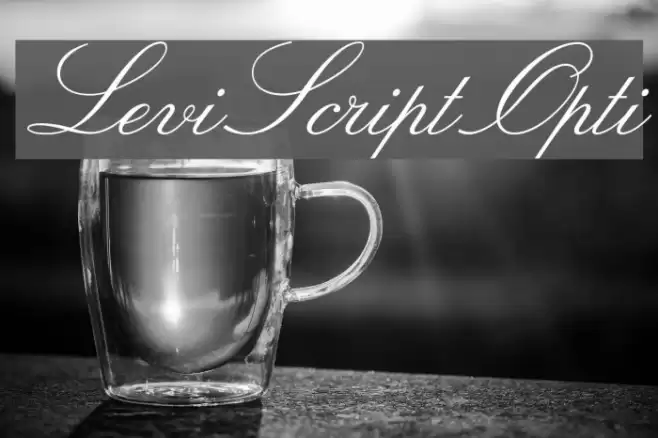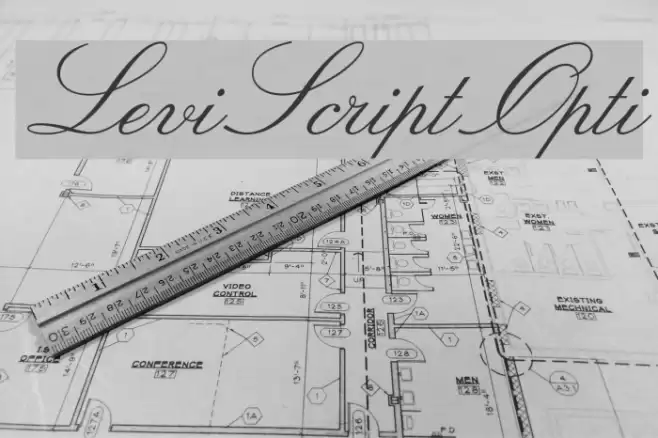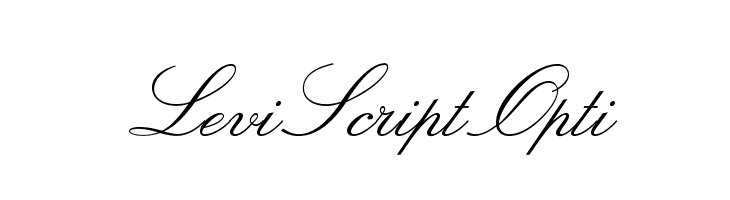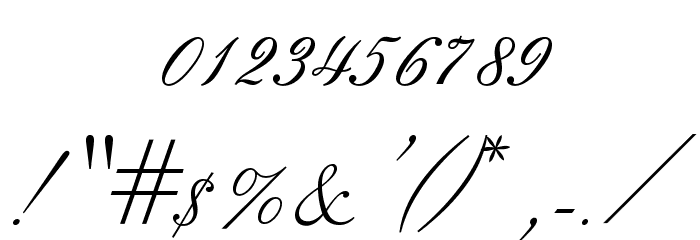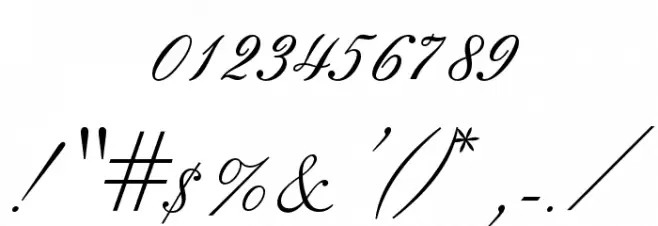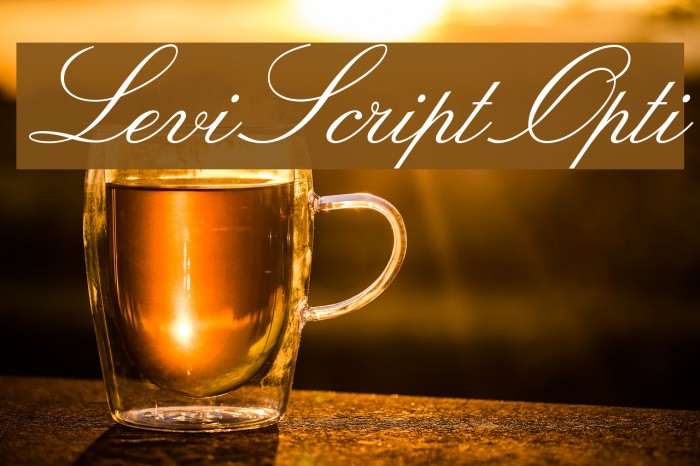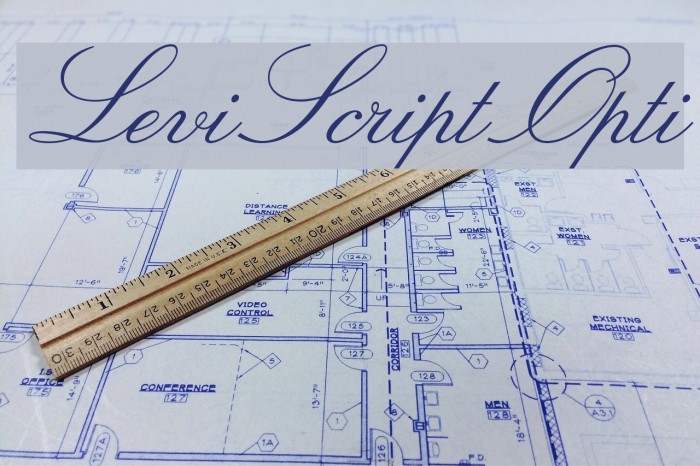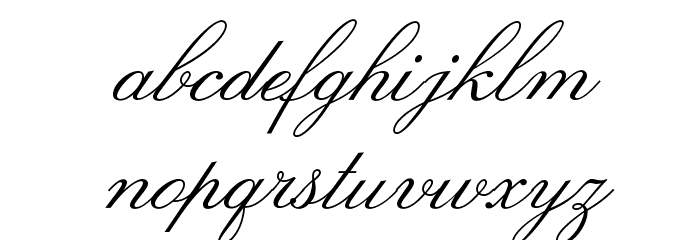
LeviScriptOpti Font
LeviScriptOpti Description
This elegant script font features flowing, cursive letters with a classic and sophisticated appearance. The uppercase letters are ornate and slightly larger than the lowercase, which are more delicate and fluid. The numbers maintain the same graceful style, ensuring consistency across all characters. Special characters are designed to match the overall aesthetic, making them suitable for decorative purposes. The font's strokes are smooth and continuous, with a medium contrast between thick and thin lines, adding to its refined look. This style is reminiscent of traditional calligraphy, offering a timeless and formal feel.
An elegant script font with flowing, cursive letters and a classic appearance from Calligraphic fonts.
- Proposed Projects: Ideal for wedding invitations, elegant branding, formal event programs, and classic logo designs.
- Overall Style: Classic
- Use Case: Logos, Invitations, Decorative text